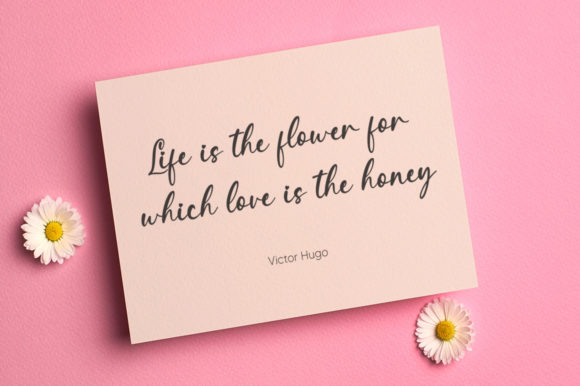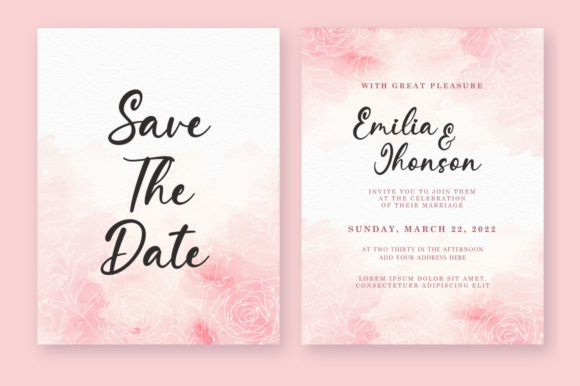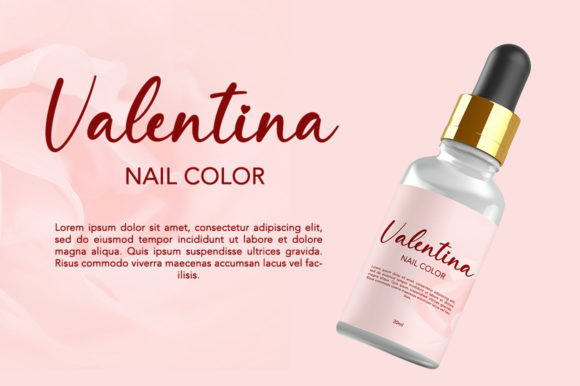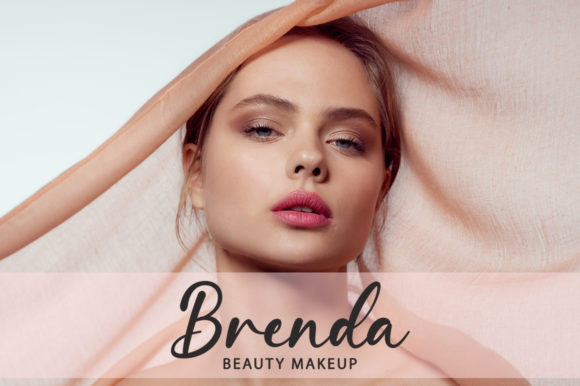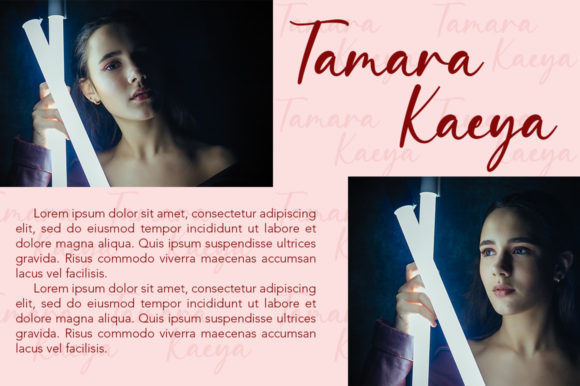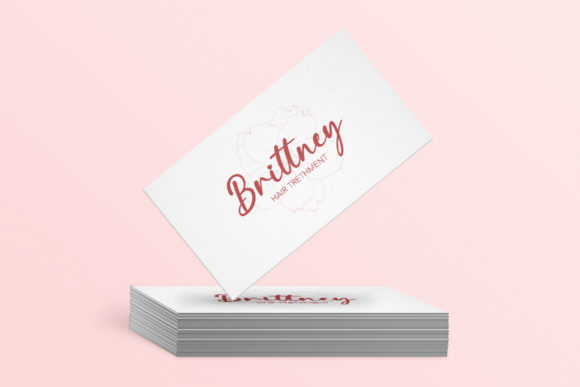
Camila Font: The Perfect Handwritten Font for Romantic Designs
Are you looking for a font that exudes sweetness, joy, and romance? Look no further than Camila Font! This dainty and flowing handwritten font is ideal for creating beautiful wedding invitations, cards, and other designs that require a personal touch. In this article, we’ll dive into the world of Camila Font and explore its features, uses, and benefits for designers and crafters.
What is Camila Font?
Camila Font is a stunning handwritten font that boasts a delicate and elegant aesthetic. Its flowing lines and curves create a sense of movement and fluidity, making it perfect for designs that require a touch of whimsy and romance. The font’s sweet and joyful vibe makes it an excellent choice for wedding-related designs, but it’s also versatile enough to be used in a variety of other projects.
Key Features of Camila Font
- Dainty and flowing design: Camila Font features a delicate and elegant design that’s perfect for creating romantic and personalized designs.
- Handwritten aesthetic: The font’s handwritten aesthetic gives it a warm and inviting feel that’s perfect for a variety of design projects.
- Sweet and joyful vibe: Camila Font exudes a sense of happiness and joy, making it ideal for wedding-related designs and other projects that require a touch of romance.
- Versatile: Despite its romantic connotations, Camila Font is a versatile font that can be used in a variety of design projects, from wedding invitations to branding and packaging.
Uses for Camila Font
Camila Font is an incredibly versatile font that can be used in a wide range of design projects. Here are some of the most popular uses for this beautiful font:
- Wedding invitations: Camila Font is perfect for creating beautiful and romantic wedding invitations that set the tone for the big day.
- Cards and stationery: The font’s sweet and joyful vibe makes it an excellent choice for creating greeting cards, thank-you cards, and other stationery.
- Branding and packaging: Camila Font can be used to create beautiful and feminine branding and packaging designs that appeal to a wide range of audiences.
- Digital designs: The font’s elegant and flowing design makes it perfect for digital designs, such as social media graphics, blog headers, and more.
Camila Font offers a range of benefits for designers and crafters, including:
- High-quality design: Camila Font is a high-quality font that’s designed to produce beautiful and clear results.
- Flexibility: The font’s versatility makes it perfect for a wide range of design projects, from wedding invitations to branding and packaging.
- Unique aesthetic: Camila Font’s unique aesthetic sets it apart from other fonts, making it an excellent choice for designers and crafters who want to create something truly special.
Tips for Using Camila Font
Here are some tips for using Camila Font in your design projects:
- Pair with complementary fonts: Pair Camila Font with complementary fonts to create a beautiful and harmonious design.
- Experiment with colors: The font’s elegant design looks beautiful in a range of colors, so don’t be afraid to experiment and find the perfect hue for your design.
- Use for headlines and titles: Camila Font is perfect for headlines and titles, where its elegant and flowing design can really shine.
- Add a personal touch: Use Camila Font to add a personal touch to your designs, whether it’s a wedding invitation or a branding project.
In conclusion, Camila Font is a beautiful and versatile handwritten font that’s perfect for designers and crafters who want to create romantic and personalized designs. Its dainty and flowing design, sweet and joyful vibe, and flexibility make it an excellent choice for a wide range of design projects. Whether you’re creating wedding invitations, cards, or branding and packaging designs, Camila Font is sure to impress.